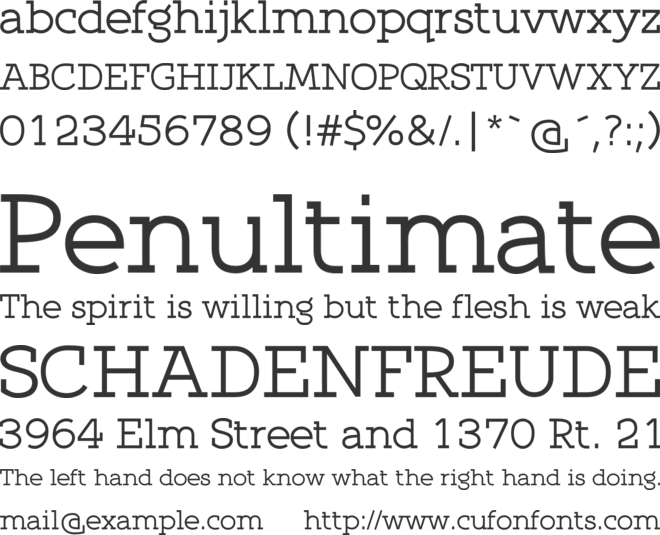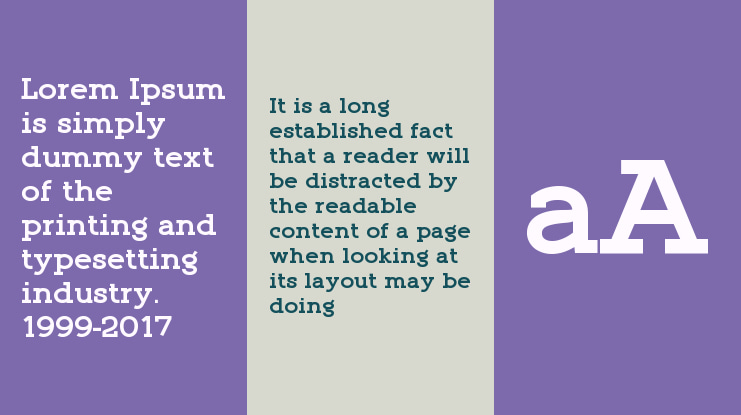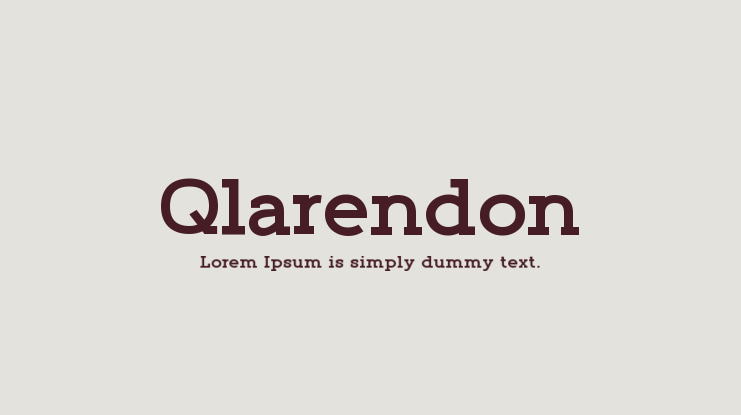
Qlarendon Font Family
Joanne Taylor
A family of 7 modern, slabby serif fonts which work together but are not strictly the same. There are other similar typefaces out there but the more the merrier? Enjoy.